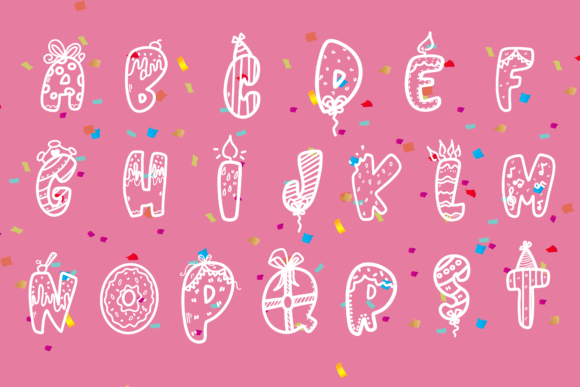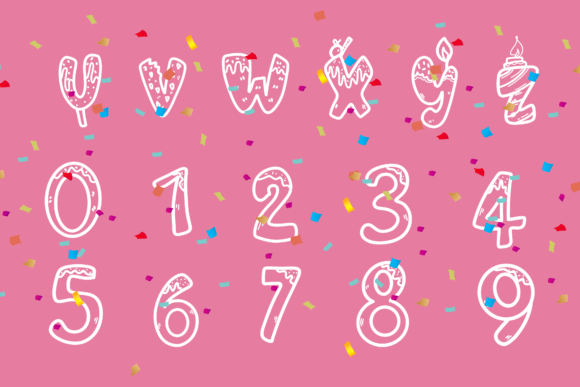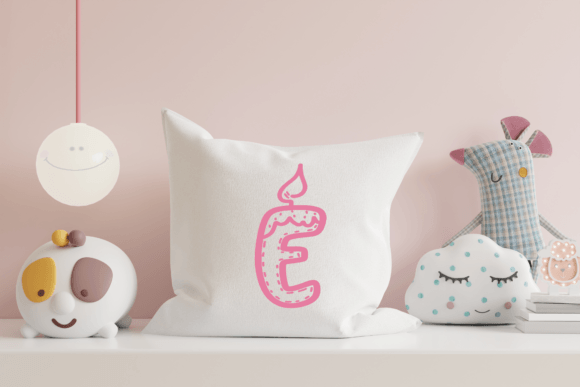
Happy Birthday Font: Add a Touch of Whimsy to Your Designs
Are you looking for a fun and quirky font to add a personal touch to your designs? Look no further than the Happy Birthday font! This delightful font is perfect for taking notes, writing a diary, or making greeting cards. But its uses don’t stop there. With its playful and decorative style, you can use it for a wide range of designs, from banners and content to mugs, cards, shirts, stationery, social media posts, and more!
What is Happy Birthday Font?
Happy Birthday font is a decorative font that features a unique and playful design. Its letters are carefully crafted to resemble handwritten text, with a mix of bold and cursive styles. The font is highly legible and comes in a range of sizes, making it perfect for both small and large designs.
Uses of Happy Birthday Font
The Happy Birthday font is incredibly versatile, and its uses are endless. Here are some ideas to get you started:
- Note-taking and journaling: Add a personal touch to your notes and journal entries with the Happy Birthday font. It’s perfect for writing down quotes, lyrics, or inspiration.
- Greeting cards: Create unique and personalized greeting cards for birthdays, holidays, or special occasions.
- Banners and signs: Use the Happy Birthday font to create eye-catching banners and signs for parties, events, or promotions.
- Social media posts: Add a touch of whimsy to your social media posts with the Happy Birthday font. It’s perfect for creating engaging and shareable content.
- Mugs and water bottles: Design personalized mugs and water bottles with the Happy Birthday font for a unique and functional gift.
- T-shirts and apparel: Create custom t-shirts, hoodies, and other apparel with the Happy Birthday font for a fun and playful look.
- Stationery and paper goods: Use the Happy Birthday font to create custom stationery, notebooks, and paper goods for a personal touch.
Tips for Using Happy Birthday Font
Here are some tips for using the Happy Birthday font in your designs:
- Keep it simple: Don’t overcomplicate your design. The Happy Birthday font is best used in simple and clean designs.
- Experiment with colors: The Happy Birthday font looks great in a range of colors. Experiment with different colors to find the one that works best for your design.
- Mix and match: Combine the Happy Birthday font with other fonts or graphics to create a unique and interesting design.
- Pay attention to size: Make sure the font is large enough to be legible, but not so large that it overwhelms the design.
The Happy Birthday font is a fun and quirky decorative font that’s perfect for adding a personal touch to your designs. With its playful and highly legible style, it’s ideal for a wide range of projects, from note-taking and journaling to banners, social media posts, and more. Whether you’re a designer, crafter, or DIY enthusiast, the Happy Birthday font is sure to bring a smile to your face and inspire your creativity.